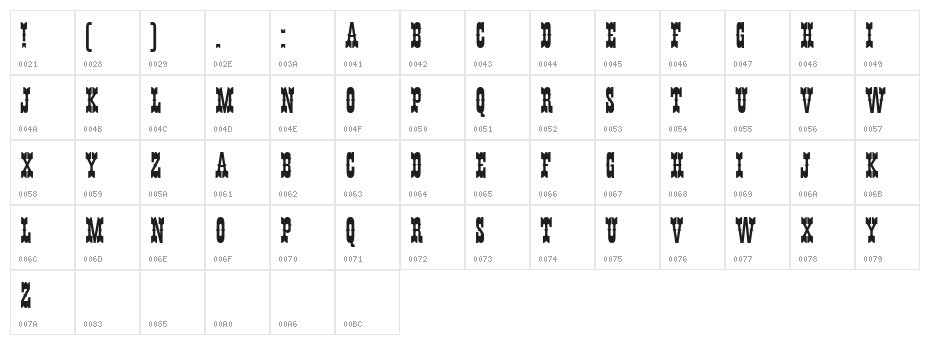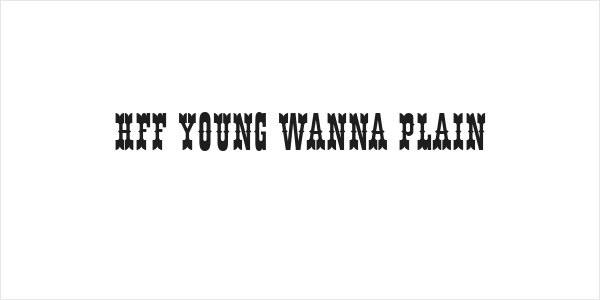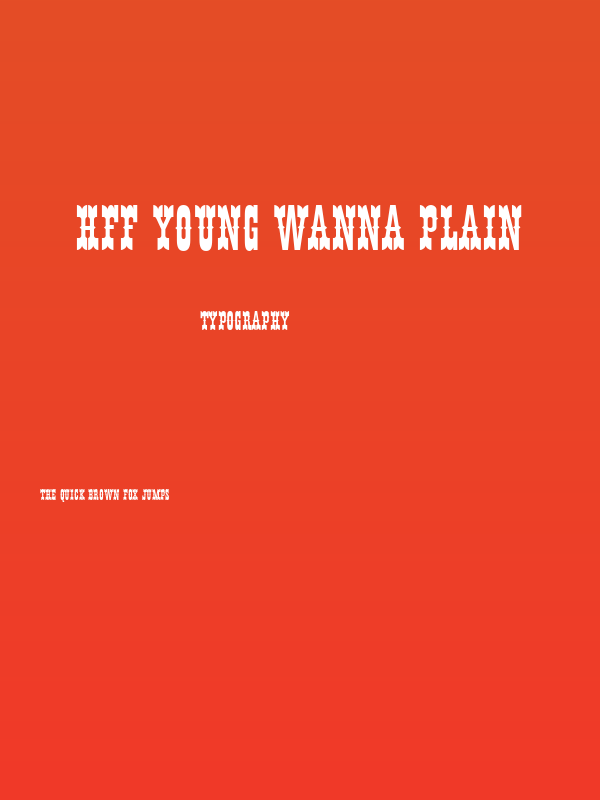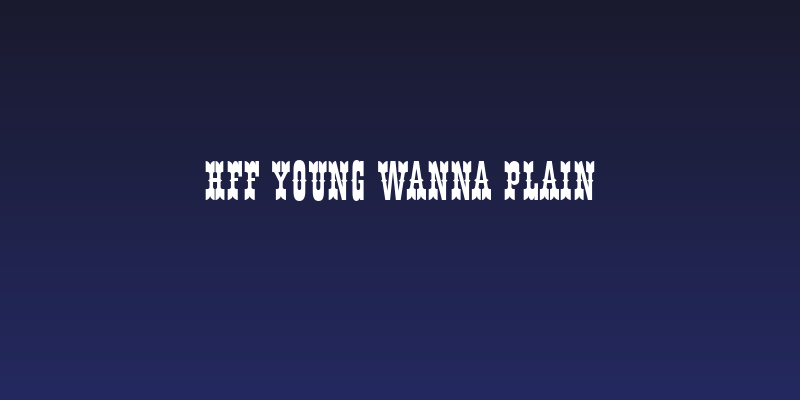
HFF Young Wanna Plain Font
HFF Young Wanna Plain Description
This font features a bold, decorative style with a strong presence. The characters are heavily stylized with thick strokes and unique cut-out patterns that give it a distinctive, eye-catching appearance. The uppercase letters are particularly prominent, with a uniform height and width that create a cohesive look. The font's design is reminiscent of vintage Western or circus posters, making it ideal for projects that require a dramatic and bold statement. The spacing between characters is tight, enhancing the compact and impactful nature of the text.
| Proposed Projects | Ideal for posters, signage, branding, and any project needing a bold, vintage aesthetic. |